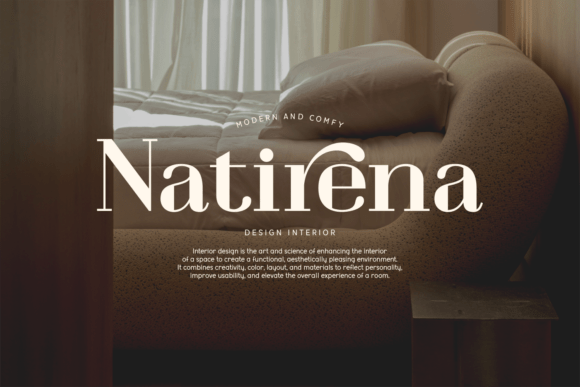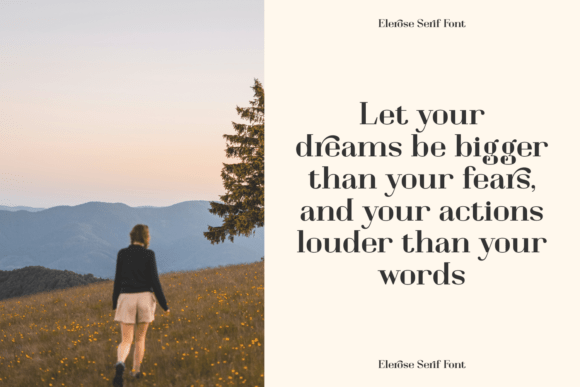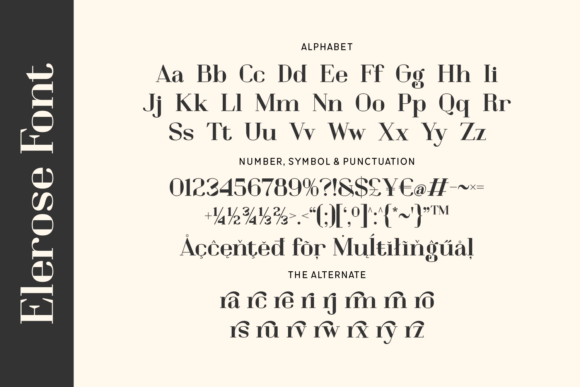
Elerose Font: Elevate Your Designs with Elegance and Sophistication
Are you tired of using the same old fonts in your designs? Look no further than Elerose, a stunning new elegant serif typeface that’s sure to take your work to the next level. In this article, we’ll dive into the world of Elerose and explore its features, benefits, and uses, as well as provide tips and inspiration for designers and crafters.
A Promotional Image that Speaks for Itself
The promotional image for Elerose perfectly captures the essence of this beautiful font. Set against a tranquil and stunning backdrop, the elegant and sophisticated style of Elerose shines through. The image exudes a sense of refinement and luxury, making it perfect for designers and crafters looking to add a touch of high-end sophistication to their work.
What is Elerose Font?
Elerose is a serif typeface that boasts a unique blend of classic elegance and modern sophistication. Its beautiful, flowing lines and curves make it perfect for a wide range of design applications, from luxury branding and advertising to packaging and editorial design.
Special Ligatures: The Icing on the Cake
One of the standout features of Elerose is its special ligatures. These unique characters add an extra layer of elegance and refinement to your designs, setting them apart from the crowd. Whether you’re working on a logo, headline, or body copy, Elerose’s ligatures are sure to impress.
Benefits of Using Elerose Font
- Elegance and sophistication: Elerose adds a touch of luxury and refinement to any design.
- Versatility: Elerose is perfect for a wide range of design applications, from branding and advertising to packaging and editorial design.
- Unique ligatures: Elerose’s special ligatures set it apart from other fonts and add an extra layer of elegance to your designs.
- Easy to read: Despite its elegant style, Elerose is highly legible, making it perfect for body copy and other long-form text.
Uses for Elerose Font
Elerose is a versatile font that can be used in a wide range of design applications, including:
- Luxury branding: Elerose is perfect for high-end brands looking to create a sophisticated and elegant visual identity.
- Advertising: Elerose’s elegant style makes it perfect for use in print and digital ads.
- Packaging design: Elerose is a great choice for packaging design, particularly for luxury goods and high-end products.
- Editorial design: Elerose is perfect for use in magazines, newspapers, and other editorial design applications.
Tips for Using Elerose Font
Here are a few tips for getting the most out of Elerose:
- Use it sparingly: Elerose is a powerful font that can quickly overwhelm a design. Use it sparingly to create a sense of elegance and sophistication.
- Experiment with ligatures: Elerose’s ligatures are a unique feature that can add an extra layer of elegance to your designs. Experiment with different ligatures to find the one that works best for your project.
- Pair it with a sans-serif font: Elerose pairs perfectly with sans-serif fonts, creating a beautiful contrast between elegant and modern.
Elerose is a stunning new elegant serif typeface that’s sure to elevate your designs to the next level. With its beautiful, flowing lines and curves, special ligatures, and versatility, Elerose is perfect for designers and crafters looking to add a touch of luxury and sophistication to their work. Whether you’re working on a luxury brand, advertising campaign, packaging design, or editorial project, Elerose is a great choice.